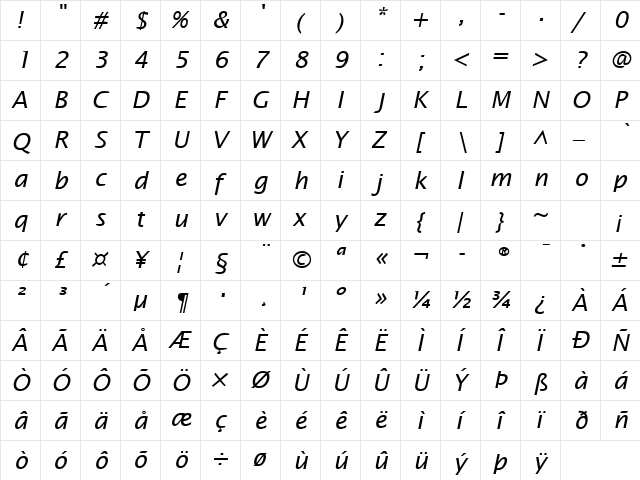
LucidaSans-Italic Regular Font Preview
LucidaSans-Italic Regular
Design Context for LucidaSans-Italic Typeface
LucidaSans-Italic offers clean, dependable letterforms without strong stylistic allegiance, making it a practical choice for designers who need flexibility. The slanted form adds forward momentum and visual energy.
Pro Tip: Try LucidaSans-Italic for annotation and caption copy alongside an upright companion — the contrast in angle creates a dynamic but ordered typographic system.